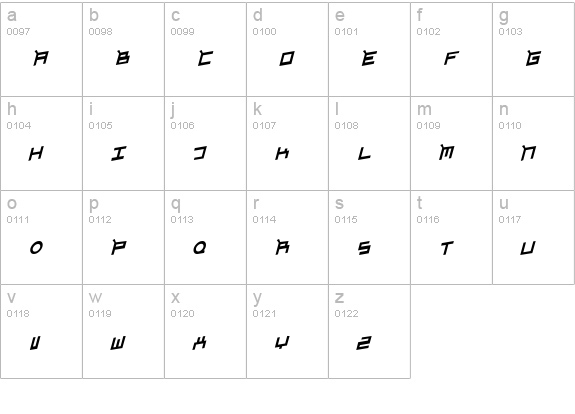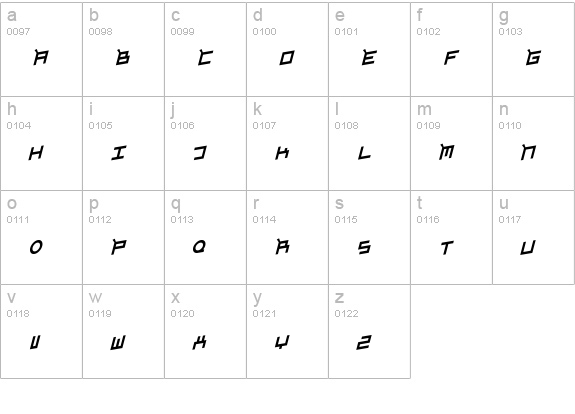
Gordon Font Details
Gordon font is a versatile and modern typeface that exudes elegance and sophistication. With its clean lines and sharp edges, Gordon font is perfect for a wide range of design projects, from branding to editorial. The font comes in multiple weights and styles, allowing for endless creative possibilities. Best of all, Gordon font is available for free download at FontsMarket.com. This means that you can easily access this high-quality font without breaking the bank. Whether you're a seasoned designer or just starting out, Gordon font is a must-have addition to your font library. Download it today and elevate your designs with this stunning typeface.